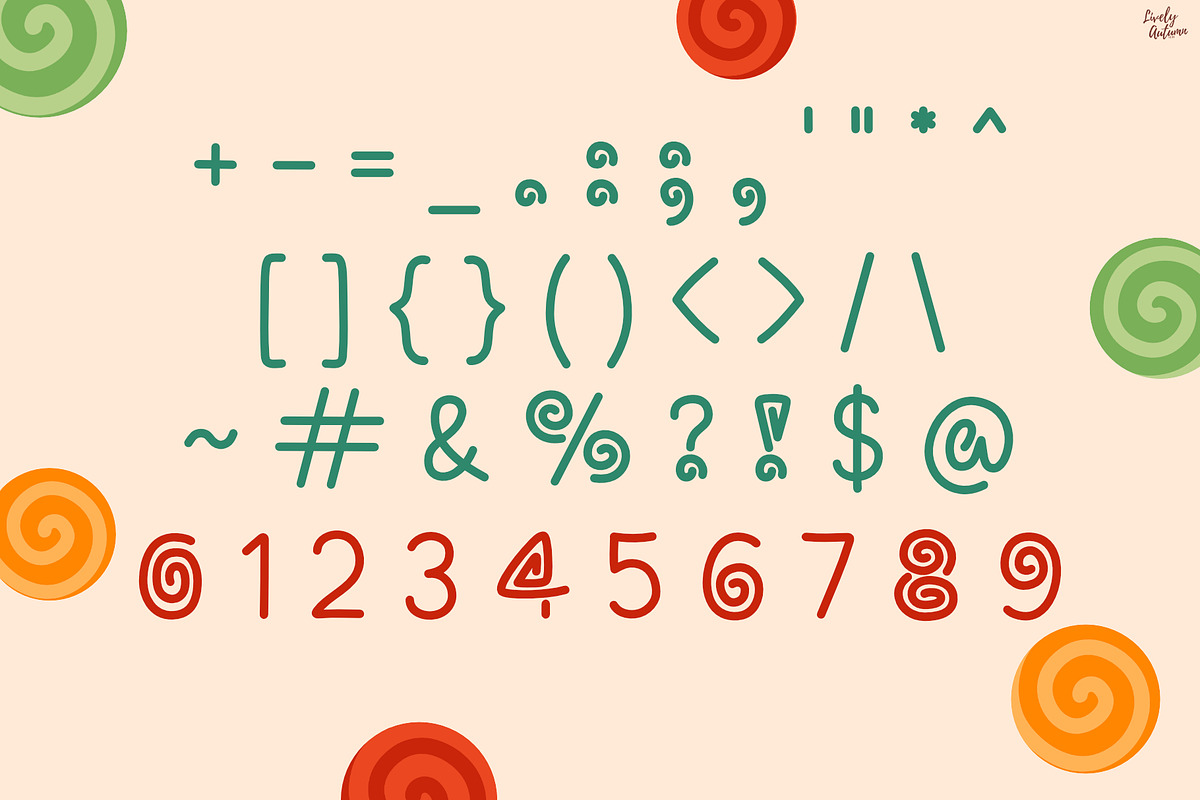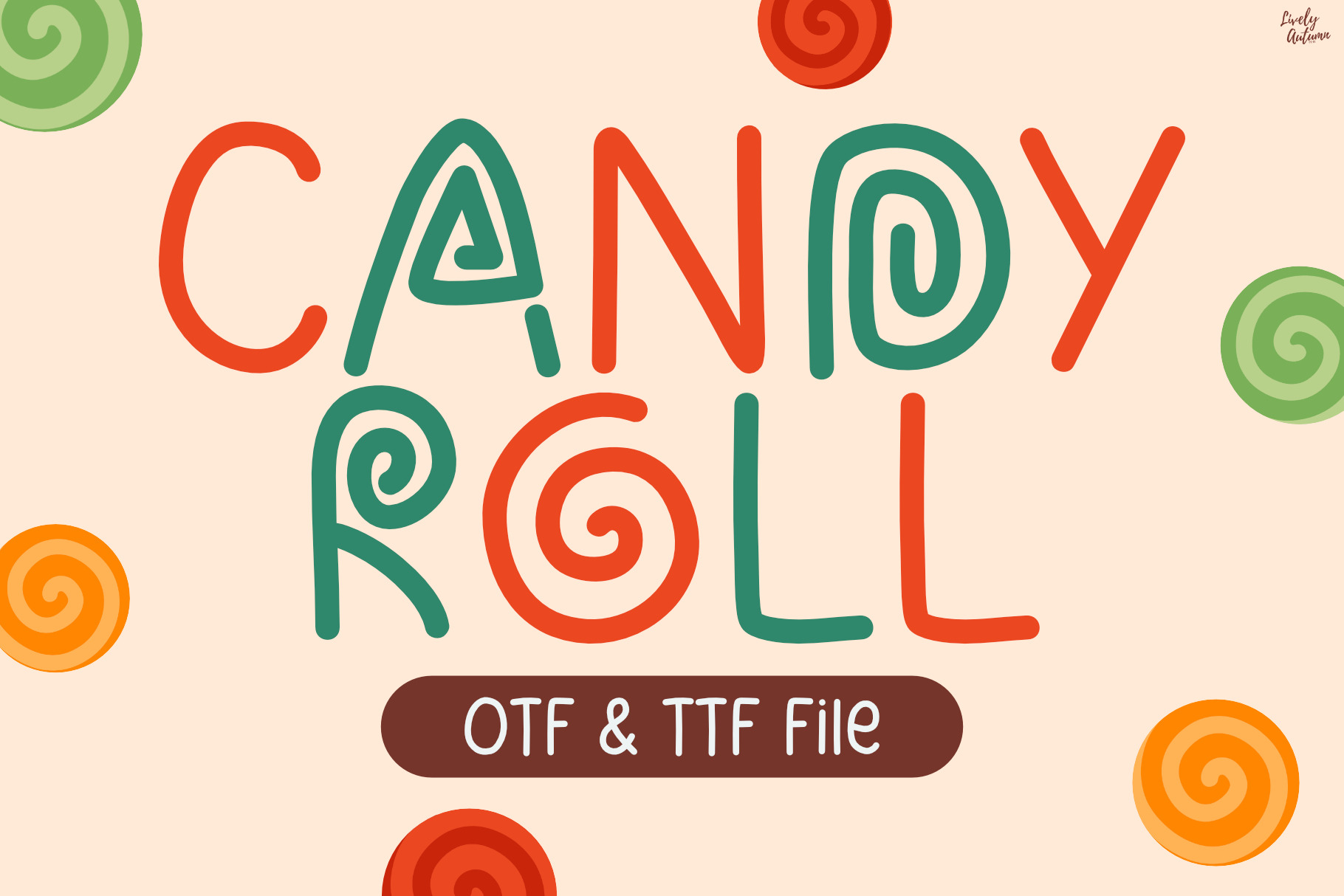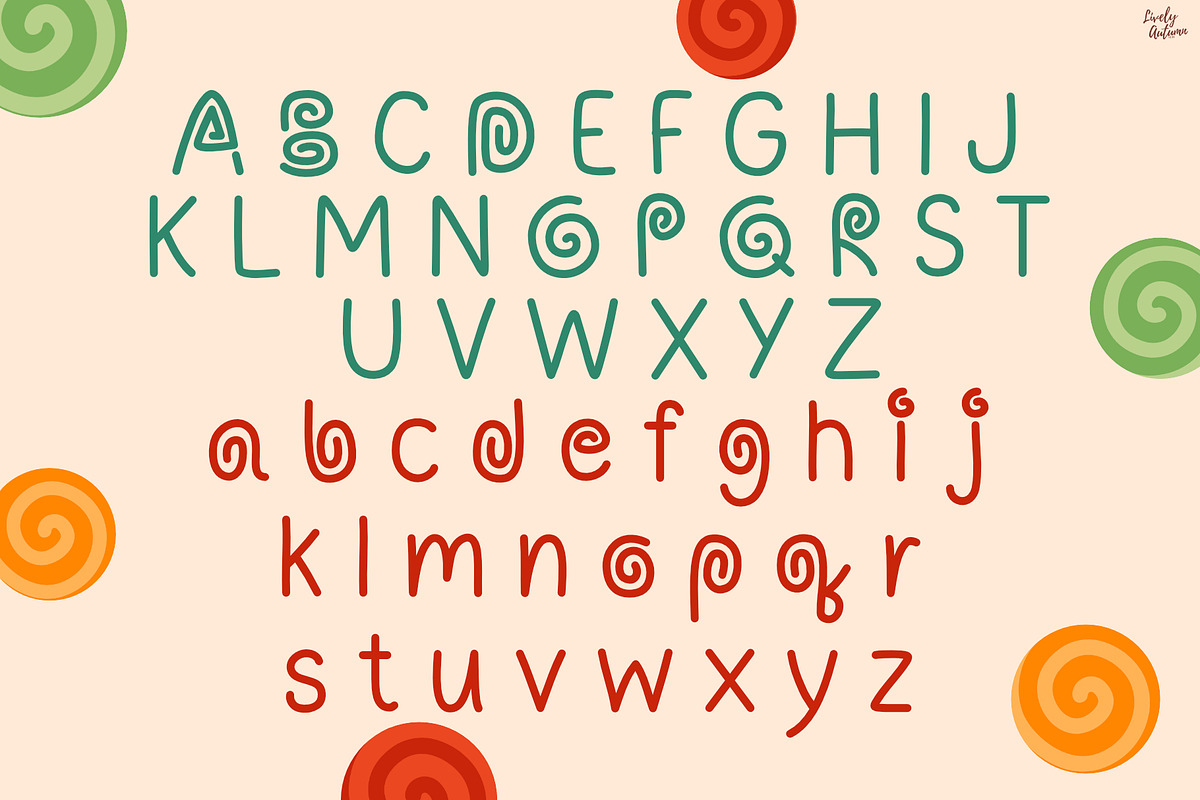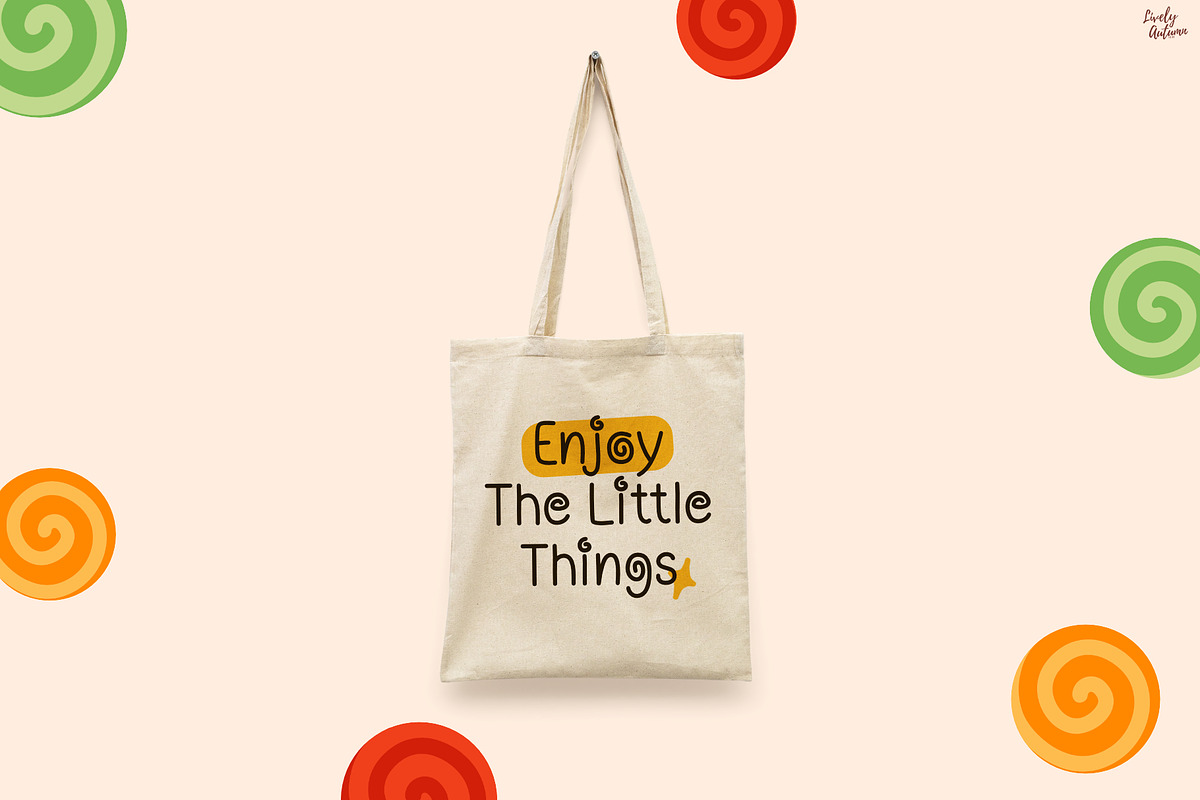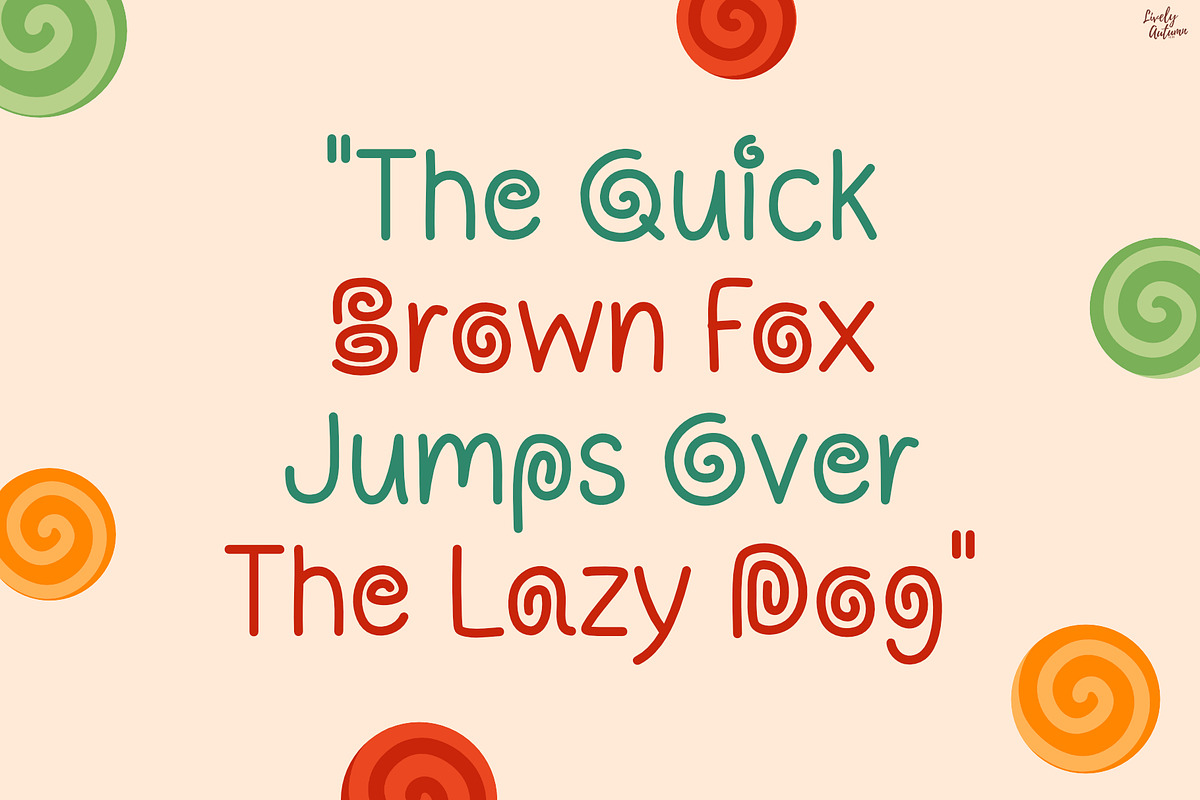
Candy Roll | Handwriting Font
Candy Roll Font is a handwritten font with a fun spiral roll in some of the letters. Perfect for your personal projects and various projects. From invitations to posters, social media graphics, journals, stickers and much more.